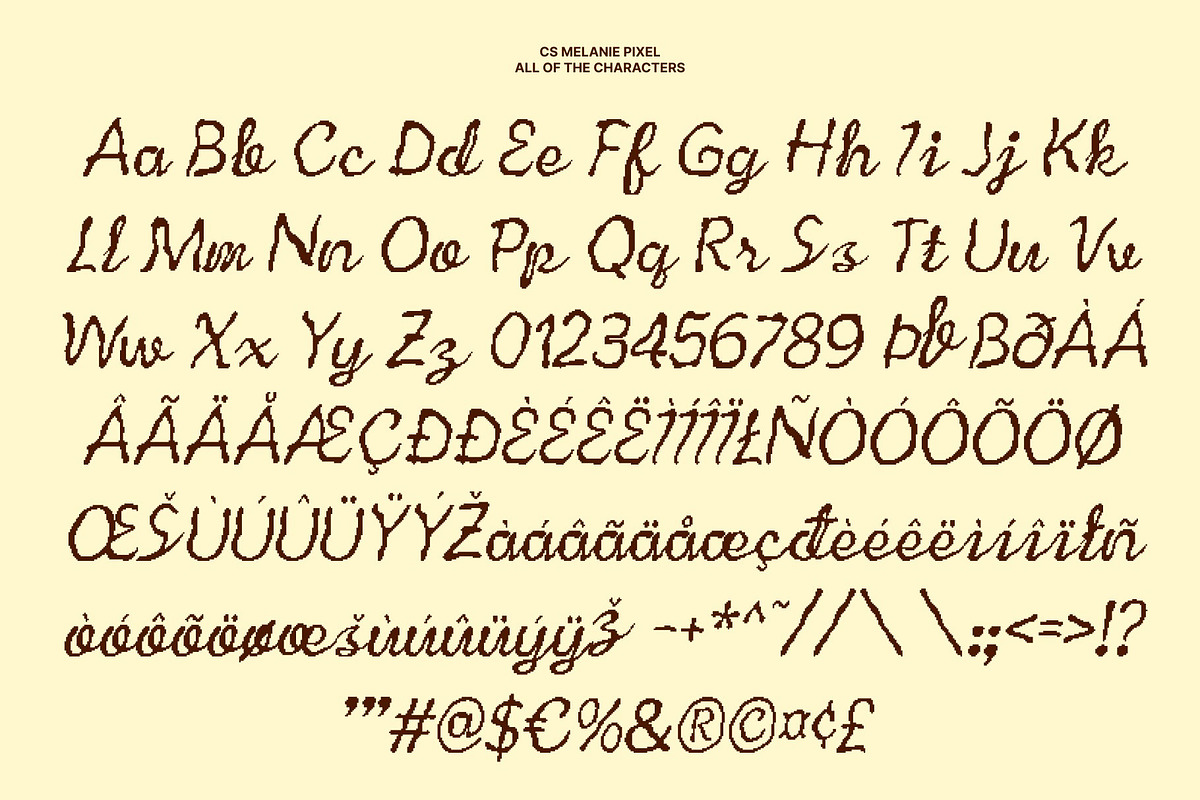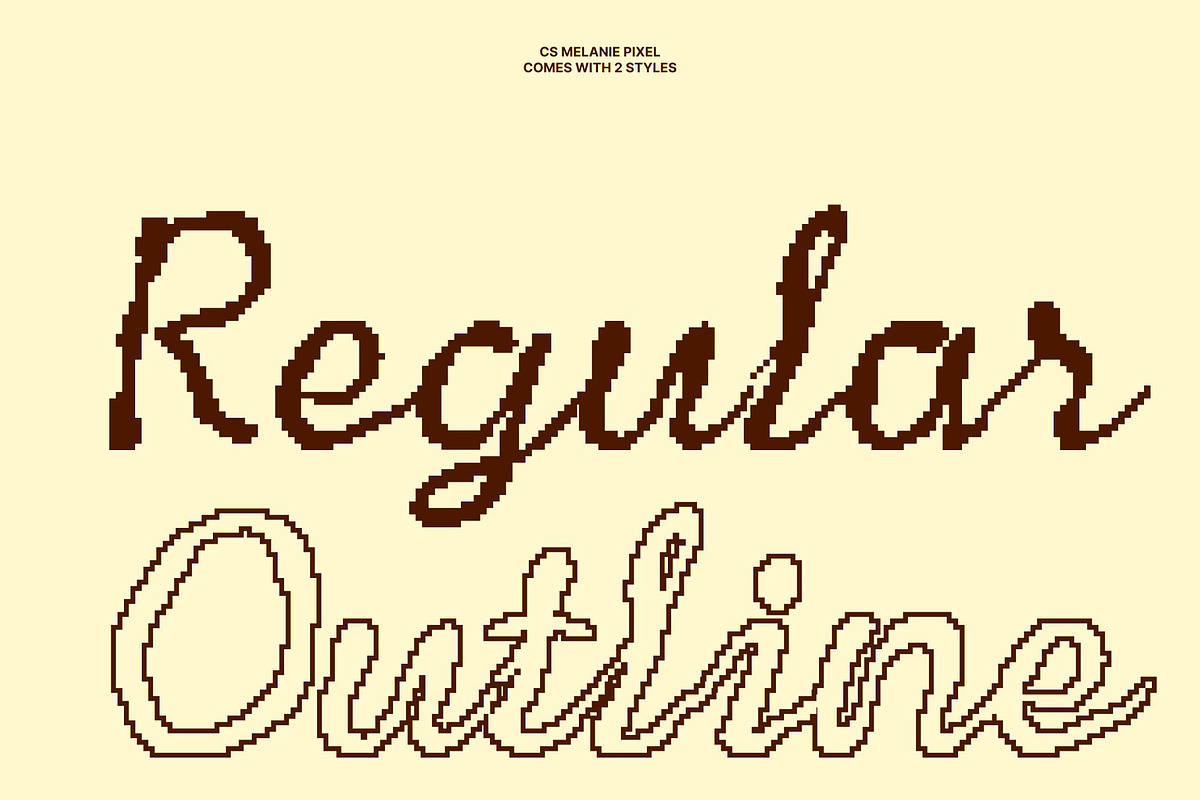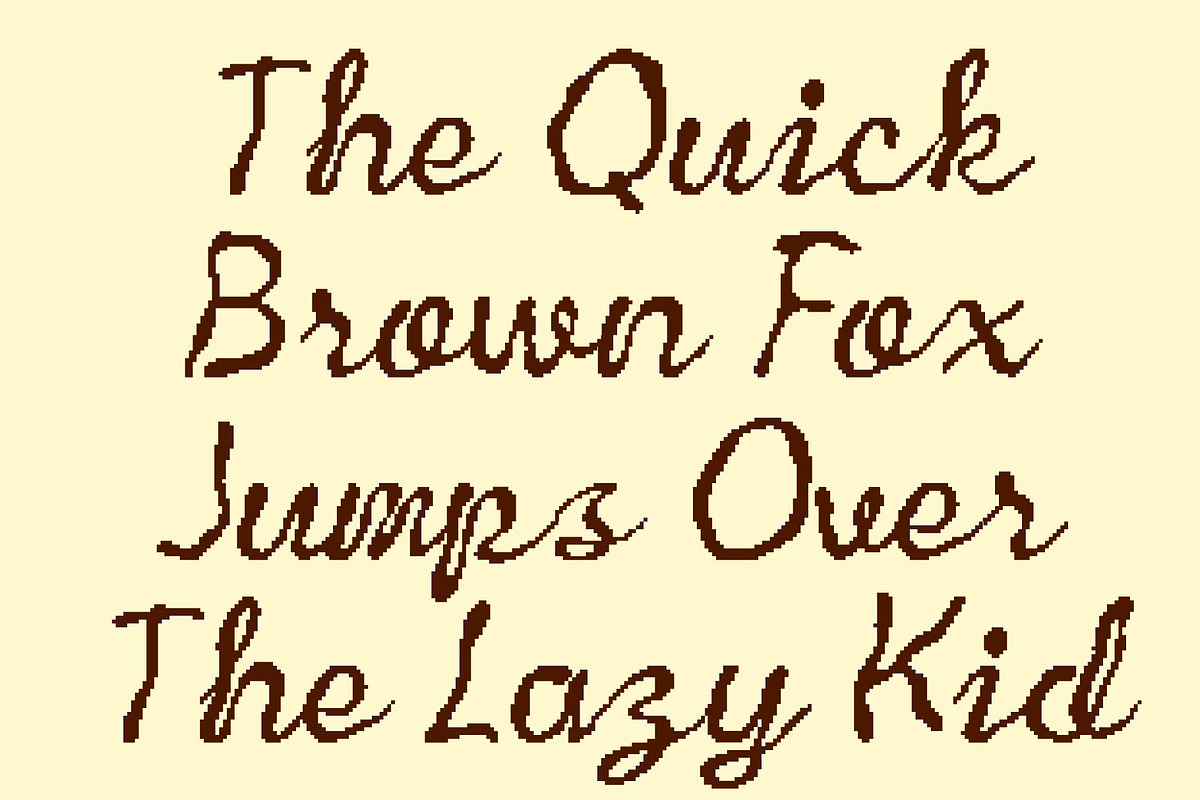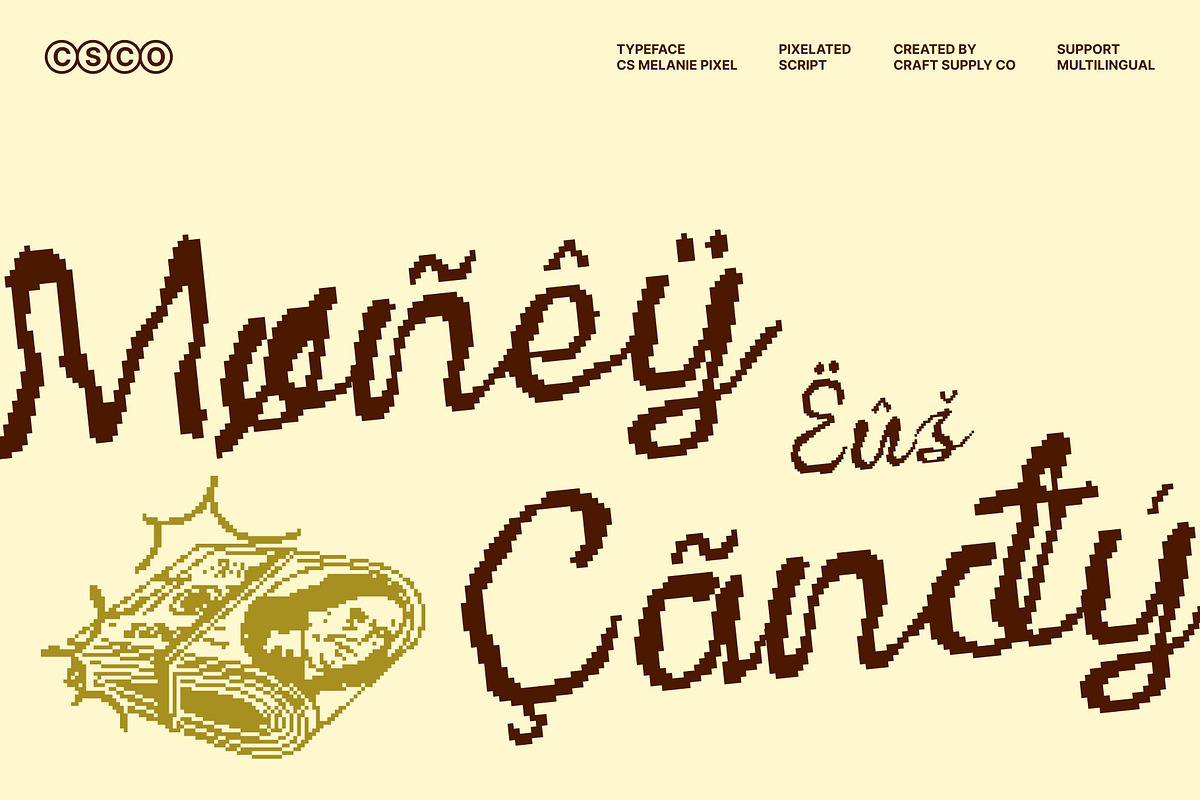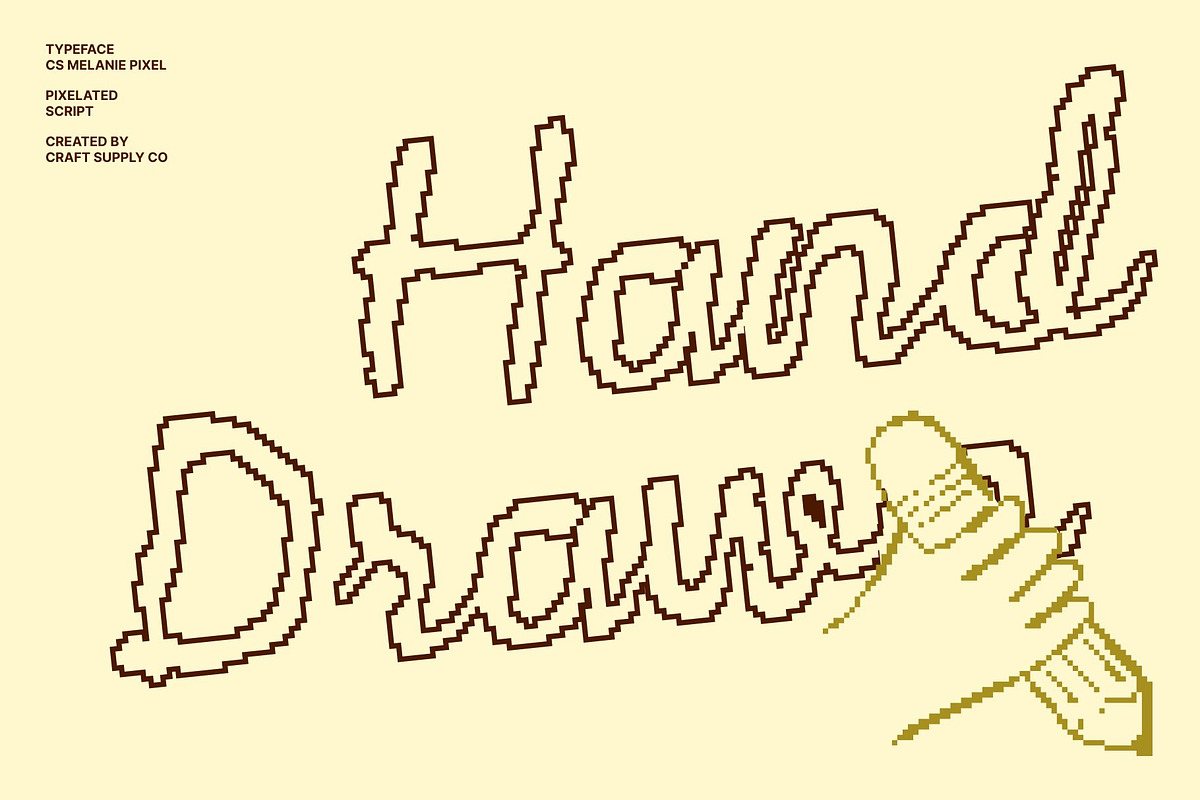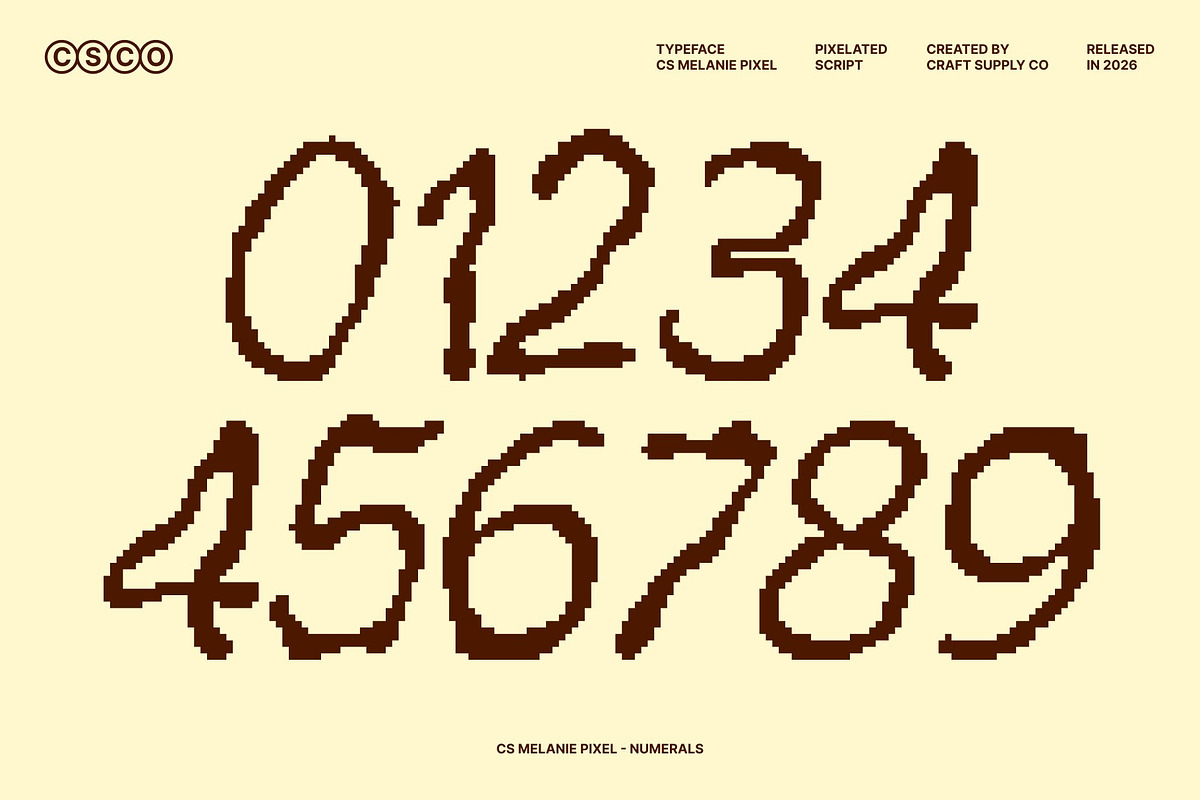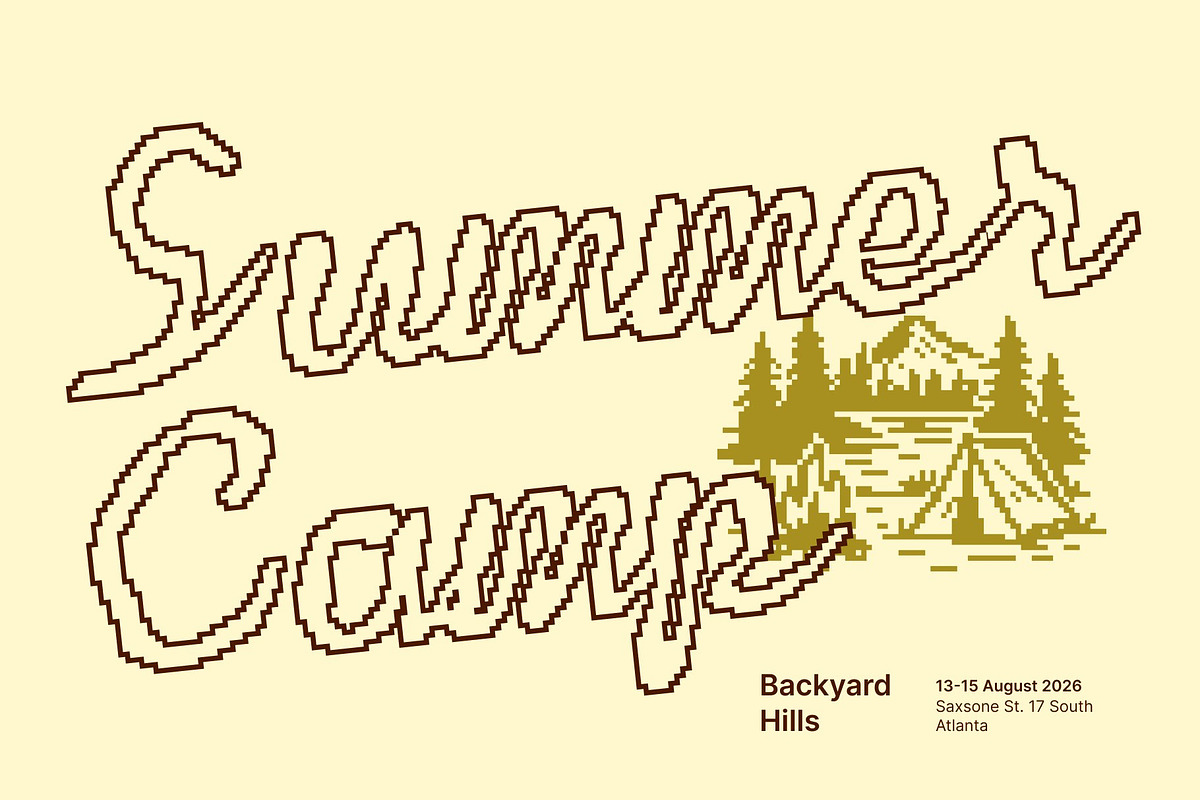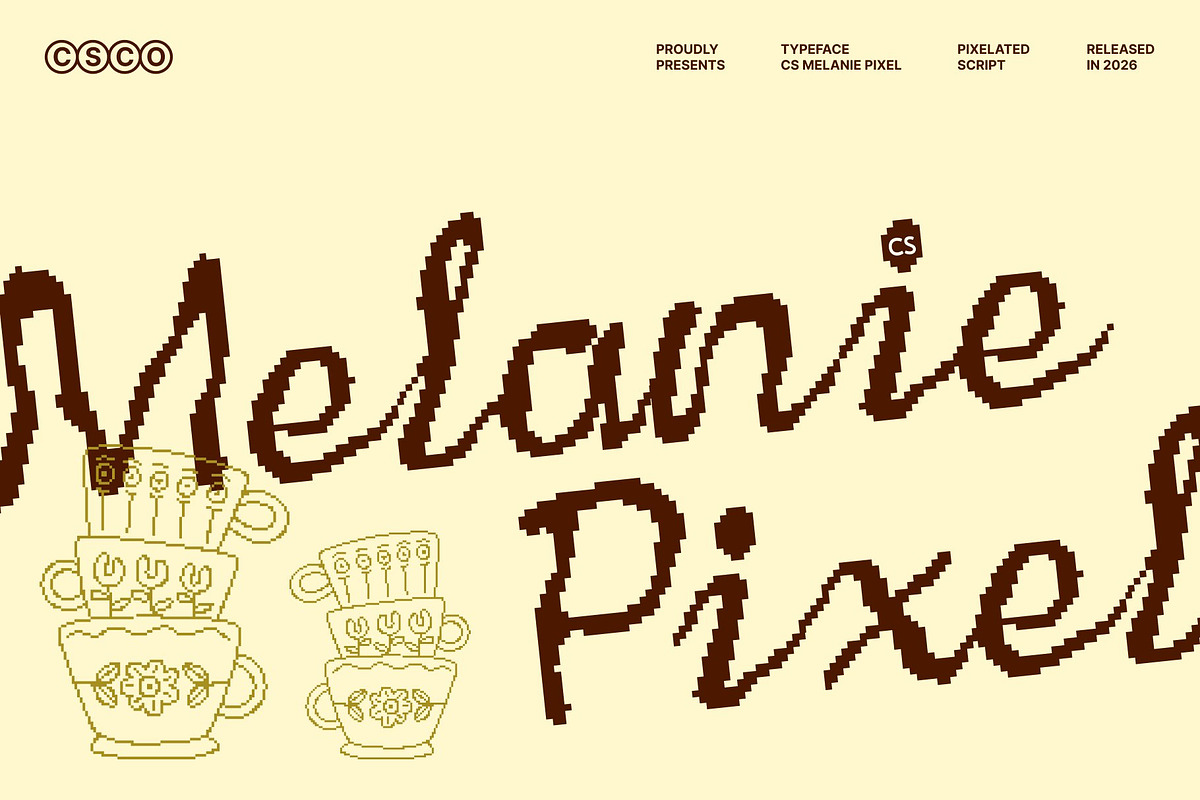
CS Melanie Pixel
CS Melanie Pixel – Etchy Script with Organic Digital Elegance
Expressive Handwritten Style with Pixel Texture This is a display script font featuring etchy, cursive, and handwritten forms enhanced with subtle pixel-inspired detailing. Each letter flows naturally, blending organic beauty with a light digital texture that adds character and visual interest. The result feels personal, artistic, and softly captivating.
Textured Strokes with Handcrafted Digital Flair The textured strokes give this font its handcrafted charm, while pixel accents introduce a modern, retro-digital edge. Its flowing cursive lines are carefully balanced to express warmth, refinement, and femininity without sacrificing readability. This combination adds depth and personality, making the font expressive yet elegant.
Perfect for Feminine, Artistic, and Digital-Creative Designs Ideal for beauty branding, boutique logos, packaging, special invitations, social media graphics, and creative campaigns, this font highlights elegance and creativity with a contemporary digital twist. Its expressive script style delivers a stylish and intimate impression that feels both modern and handcrafted.
Versatile for Stylish and Expressive Applications From packaging and event materials to editorials and digital content, this font adapts beautifully across design contexts. Its organic, etchy character paired with pixel detailing allows it to work as a striking display font or a charming handwritten accent offering flexibility with refined personality.